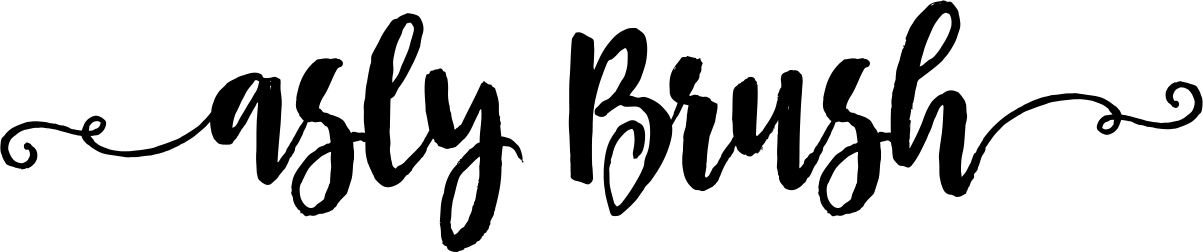
Asly Brush Font
Designed byRoiyani Teungku
Need a script font for your text layouts? So go with Asly Brush this time and make a striking outcome. The letters are curly and give an adventuresome vibe. Remember that this watercolor font is not legible and you better not use it for long passages. Don’t doubt and get it as soon as possible.